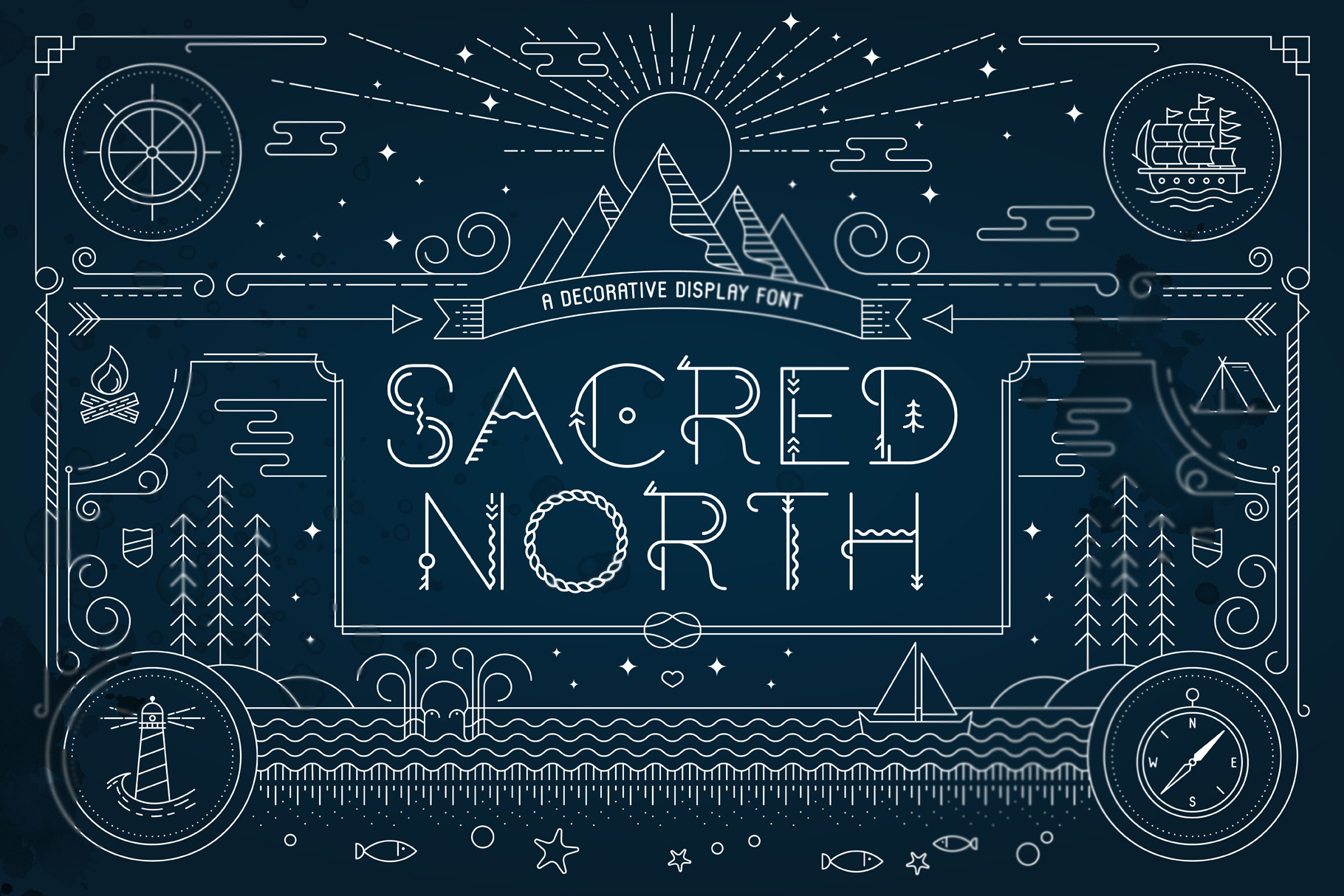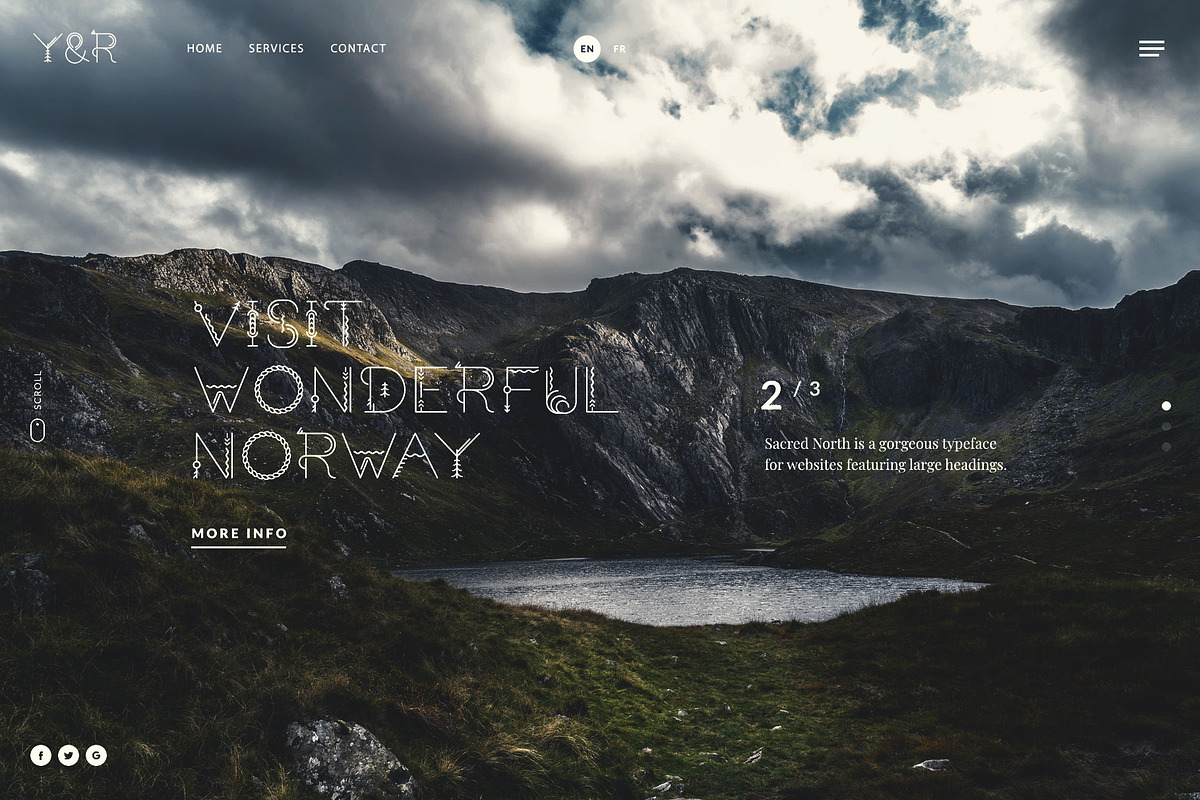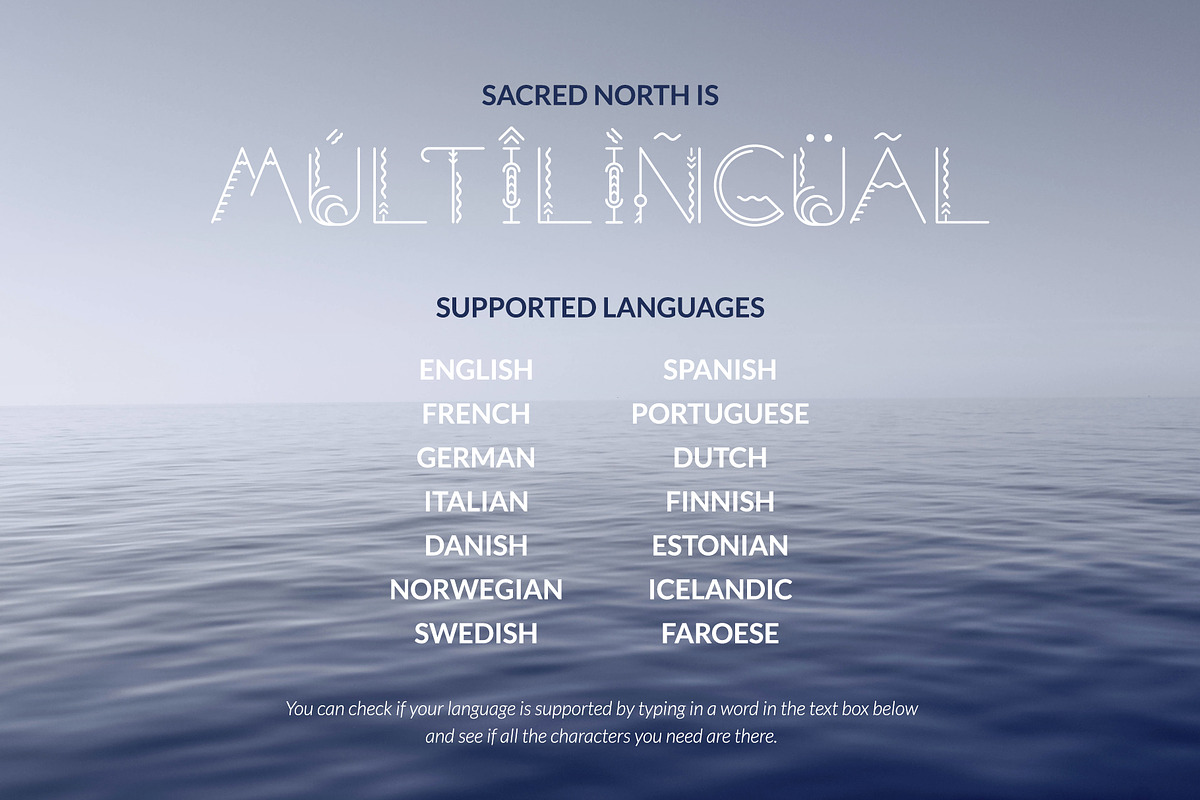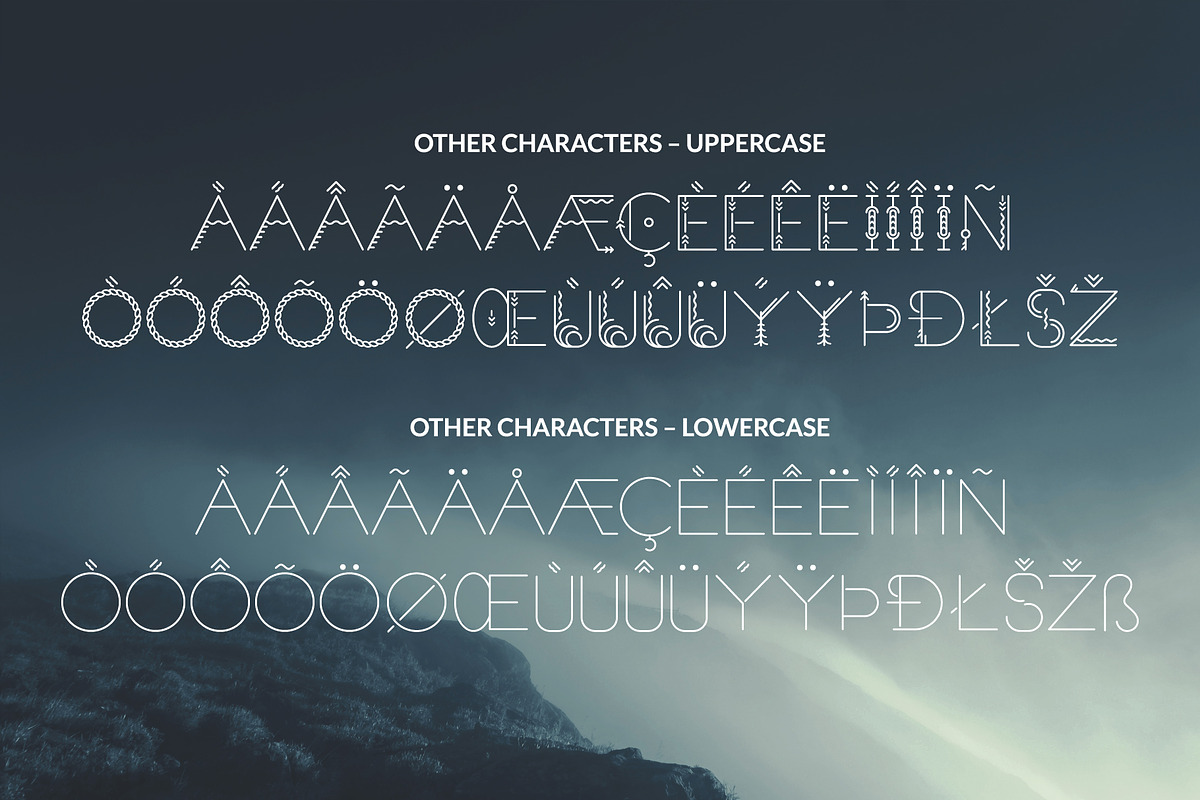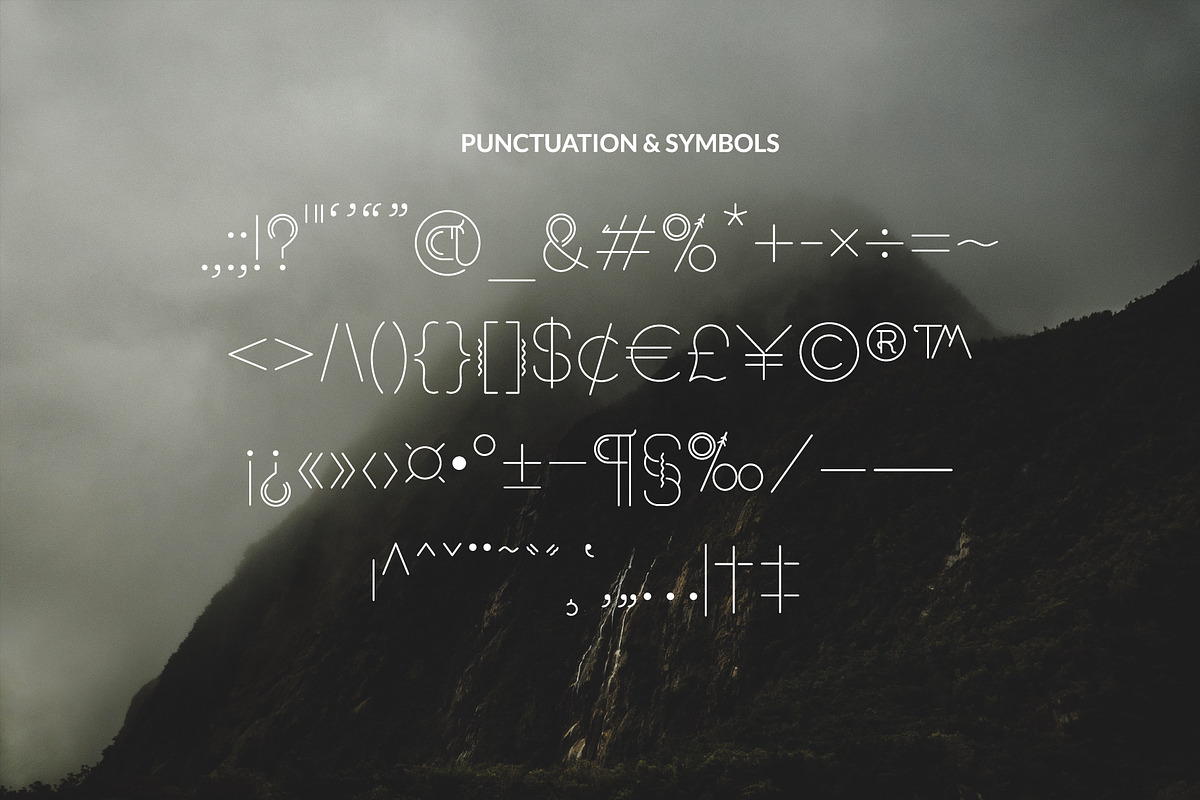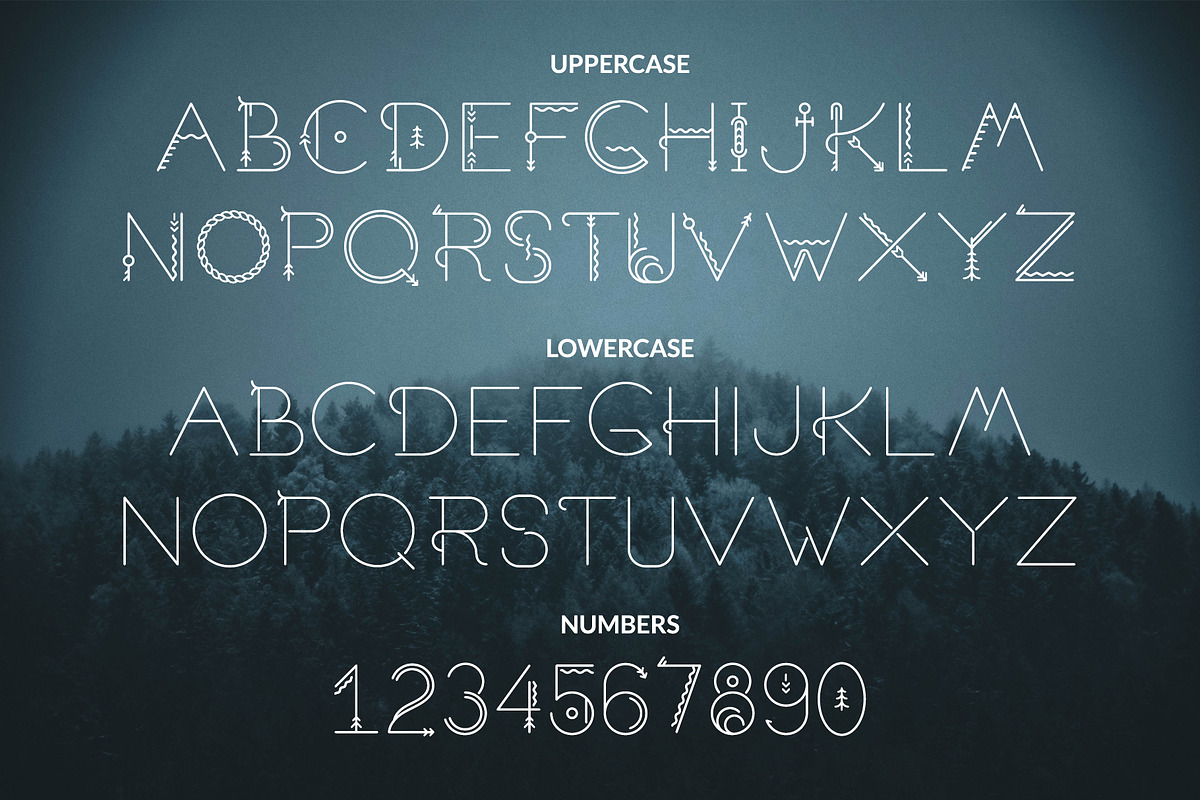
Sacred North Display Font + Extras
Sacred North is a beautiful, stylistic uppercase display font inspired by Scandinavian history and culture. It features elements of nordic elegance that is so popular in brands these days, combined with runic elements of the Viking Age. I'm from Denmark myself (and live in wonderful Copenhagen), so I've pulled inspiration from my everyday surroundings too.
The uppercase letters have a decorative, geometric appearance while the lowercase letters feature a more elegant and simple appearance which means the two variations complement each other really well and allow for versatile design options – it's almost as if they were two different fonts.
This font works perfectly for headlines, quotes, posters, brochures, packaging, T-shirts, postcards, logos and so much more.
- Includes 208 characters that covers all major Western languages.